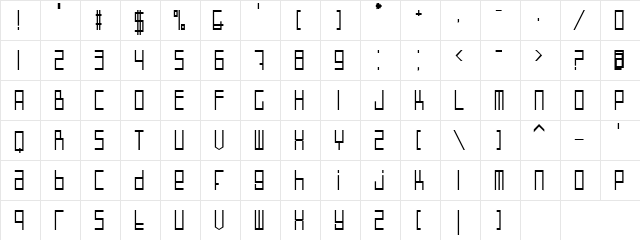
All One Regular
Design Context for All One Typeface
All One takes a measured approach to typography — its balanced proportions and neutral character make it a reliable workhorse for both digital and print work.